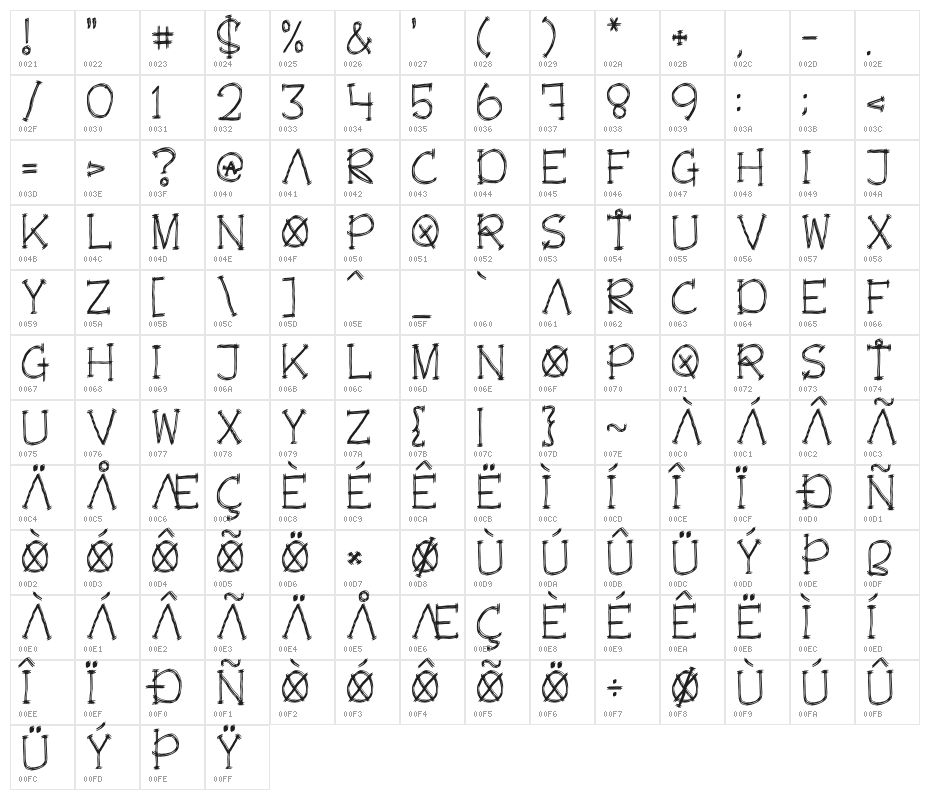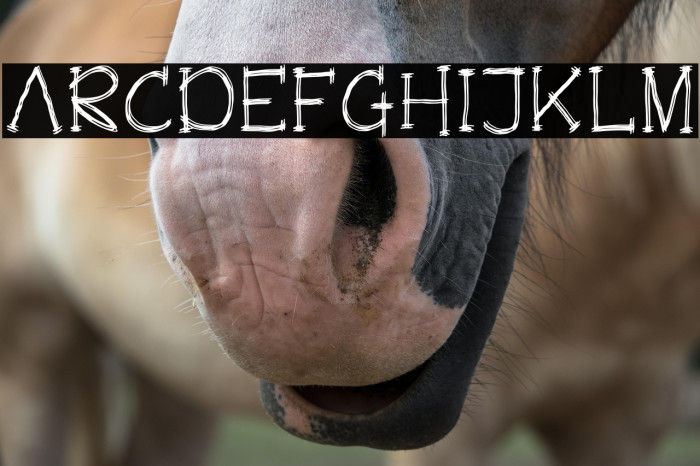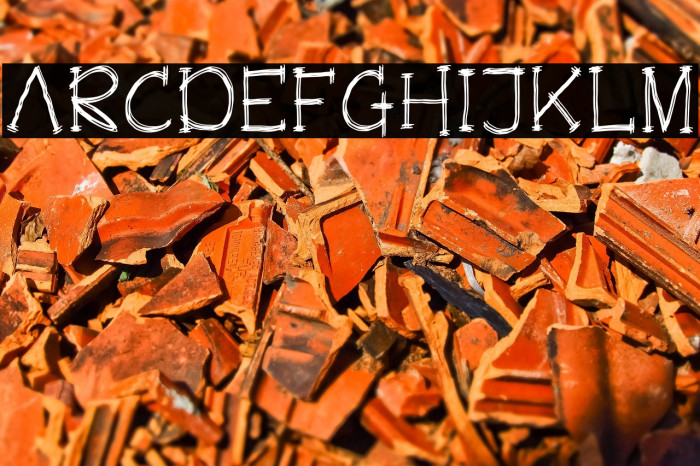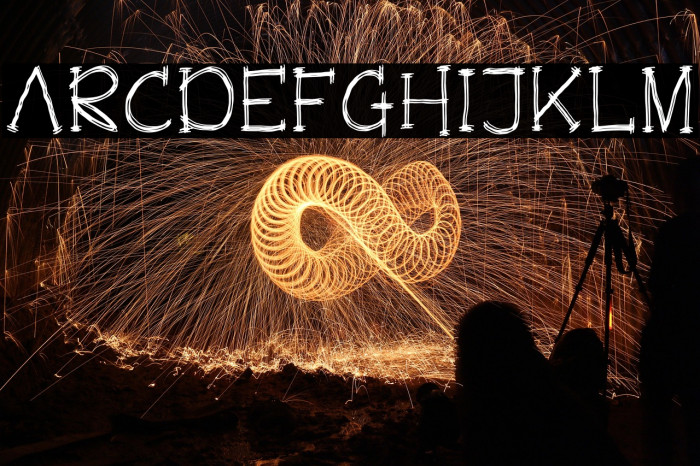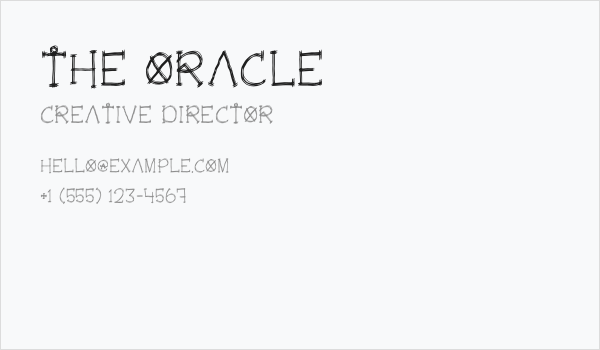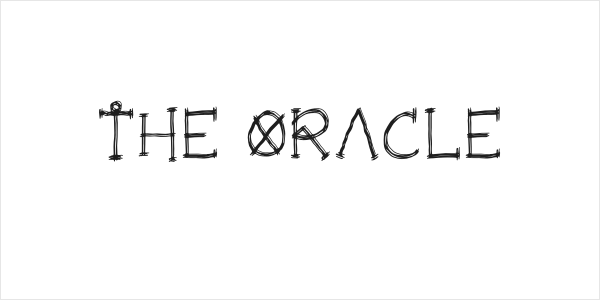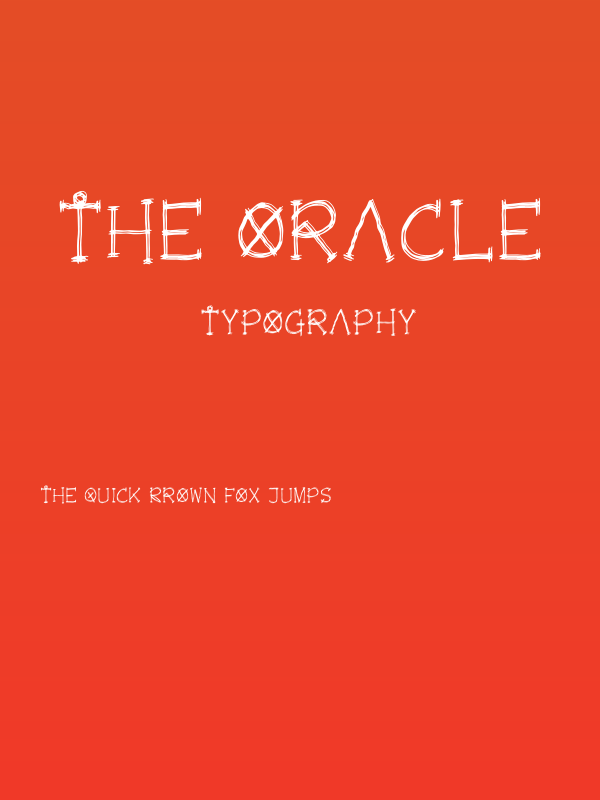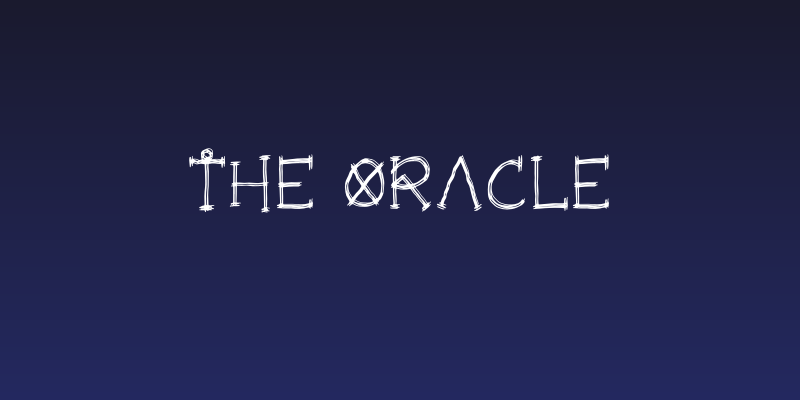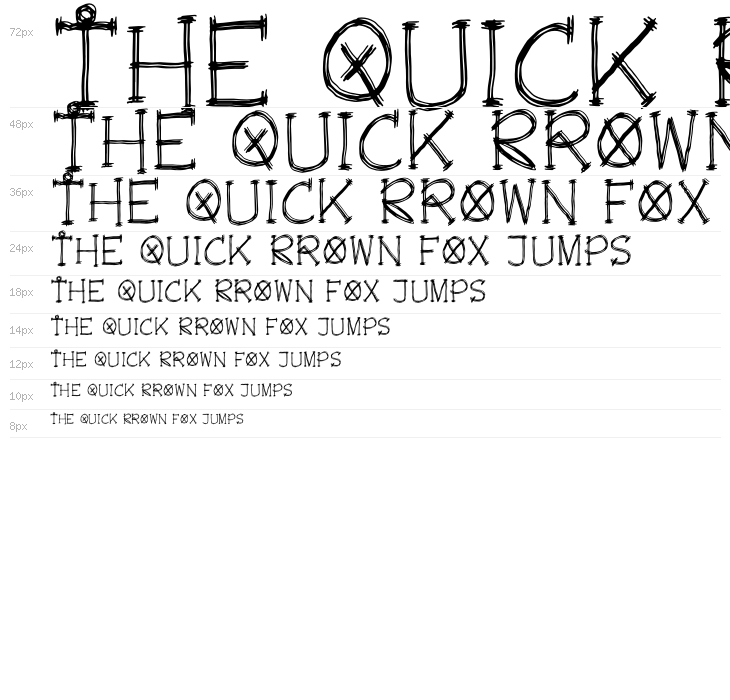
The Oracle Font
The Oracle Description
This font features a unique, hand-drawn style with a slightly chaotic and sketch-like appearance. The characters are crafted with uneven lines and strokes, giving them a raw and artistic feel. Each letter has a distinct personality, with some incorporating additional elements like slashes or crosses, adding to the font's edgy and unconventional look. The numbers and special characters maintain this artistic flair, making the font suitable for creative and informal projects. Its playful yet bold design makes it stand out, capturing attention with its distinctive character shapes.
| Overall Style | Artistic, Edgy, Hand-drawn |
| Use Case | Headlines, Logos, Artistic projects |
| Proposed Projects | Ideal for creative projects such as posters, album covers, or artistic branding materials. |